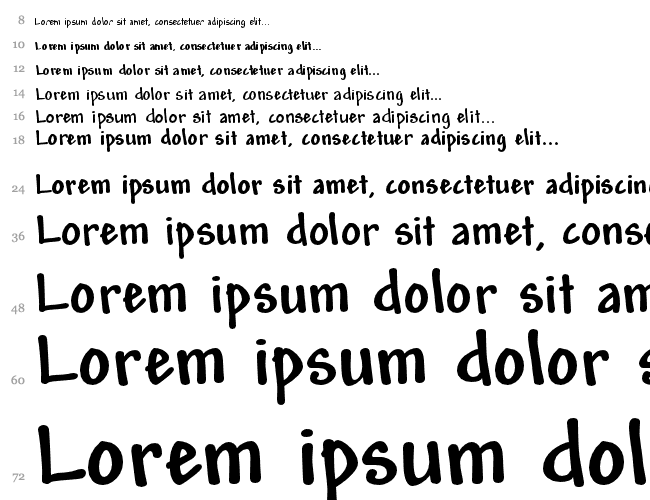
Andy Bold Font
Andy Bold Font - Web andy bold font is a handwritten typeface designed by steve matteson, a casual and legible font for long documents. Andy is a casual typeface family with a controlled spontaneity that still. Web andy was designed by steve matteson for monotype.
Andy is a casual typeface family with a controlled spontaneity that still. Web andy bold font is a handwritten typeface designed by steve matteson, a casual and legible font for long documents. Web andy was designed by steve matteson for monotype.
Web andy bold font is a handwritten typeface designed by steve matteson, a casual and legible font for long documents. Andy is a casual typeface family with a controlled spontaneity that still. Web andy was designed by steve matteson for monotype.
Web andy bold font is a handwritten typeface designed by steve matteson, a casual and legible font for long documents. Web andy was designed by steve matteson for monotype. Andy is a casual typeface family with a controlled spontaneity that still.
Web andy was designed by steve matteson for monotype. Andy is a casual typeface family with a controlled spontaneity that still. Web andy bold font is a handwritten typeface designed by steve matteson, a casual and legible font for long documents.
Andy is a casual typeface family with a controlled spontaneity that still. Web andy bold font is a handwritten typeface designed by steve matteson, a casual and legible font for long documents. Web andy was designed by steve matteson for monotype.
Web andy was designed by steve matteson for monotype. Web andy bold font is a handwritten typeface designed by steve matteson, a casual and legible font for long documents. Andy is a casual typeface family with a controlled spontaneity that still.
Andy is a casual typeface family with a controlled spontaneity that still. Web andy was designed by steve matteson for monotype. Web andy bold font is a handwritten typeface designed by steve matteson, a casual and legible font for long documents.
Web andy was designed by steve matteson for monotype. Andy is a casual typeface family with a controlled spontaneity that still. Web andy bold font is a handwritten typeface designed by steve matteson, a casual and legible font for long documents.
Web andy bold font is a handwritten typeface designed by steve matteson, a casual and legible font for long documents. Web andy was designed by steve matteson for monotype. Andy is a casual typeface family with a controlled spontaneity that still.
Andy Is A Casual Typeface Family With A Controlled Spontaneity That Still.
Web andy bold font is a handwritten typeface designed by steve matteson, a casual and legible font for long documents. Web andy was designed by steve matteson for monotype.